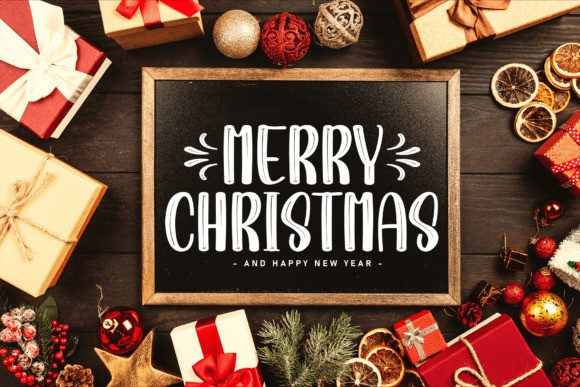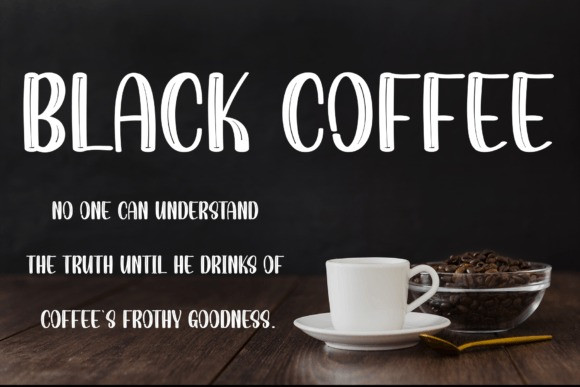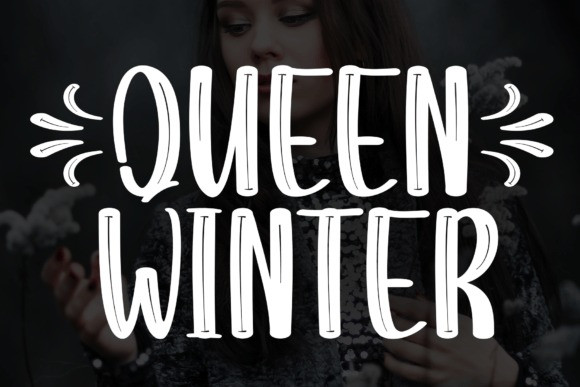
Queen Winter Font
Queen Winter is a sweet and friendly handwritten font. Its natural and unique style makes it incredibly fitting to a large pool of designs. The only limit is your imagination!